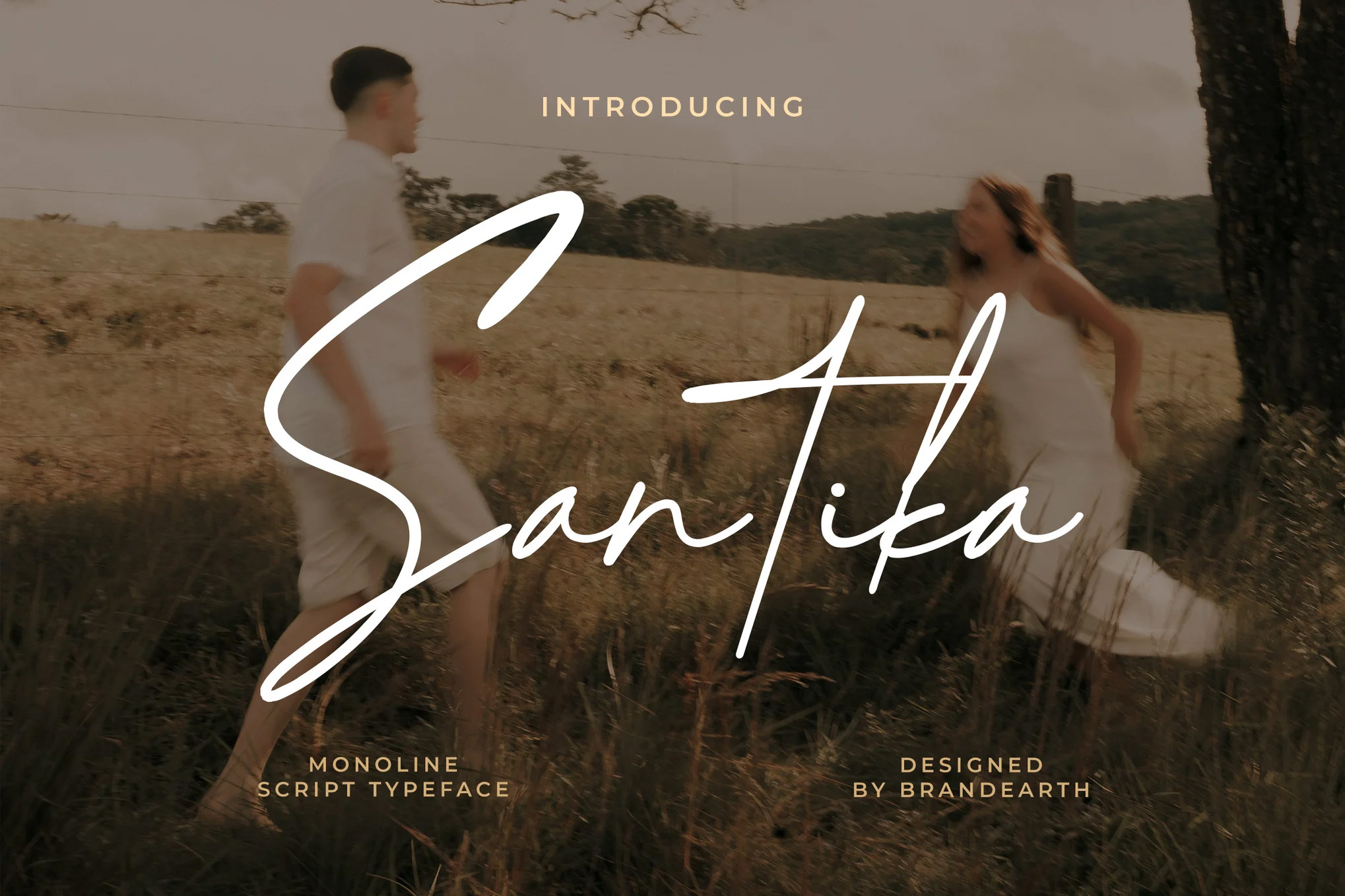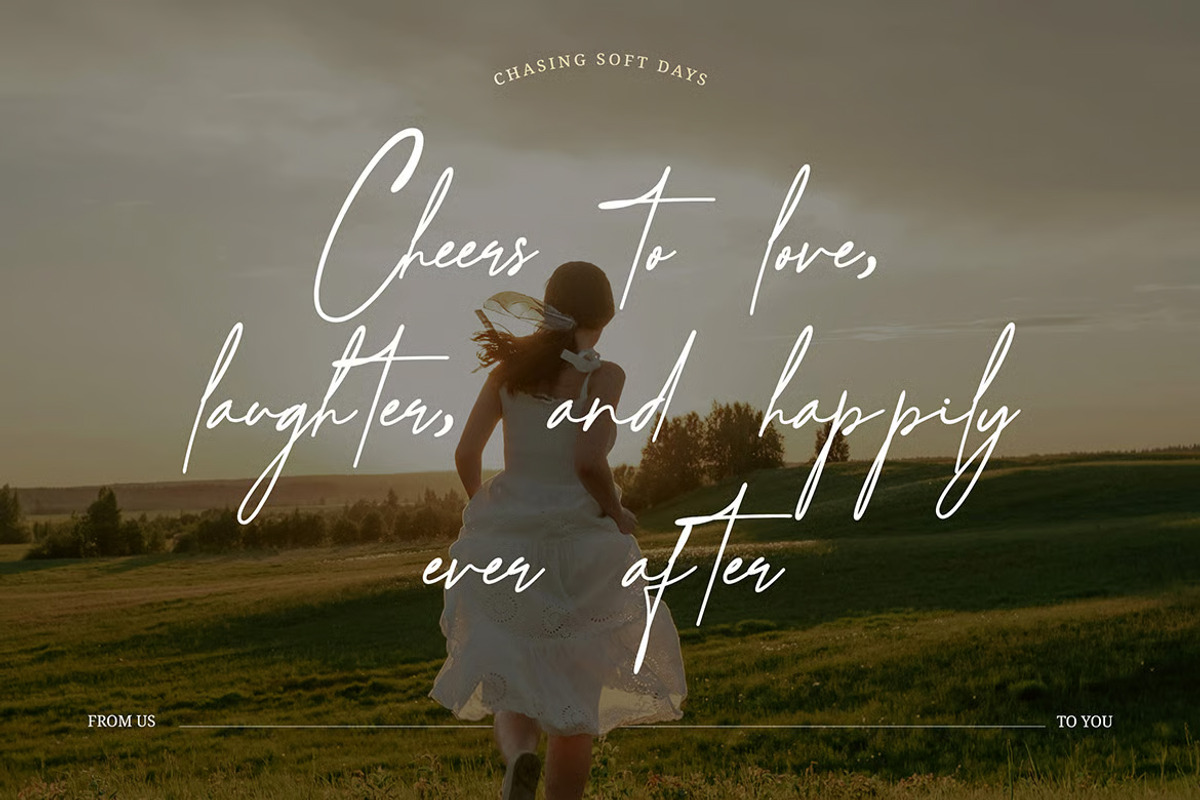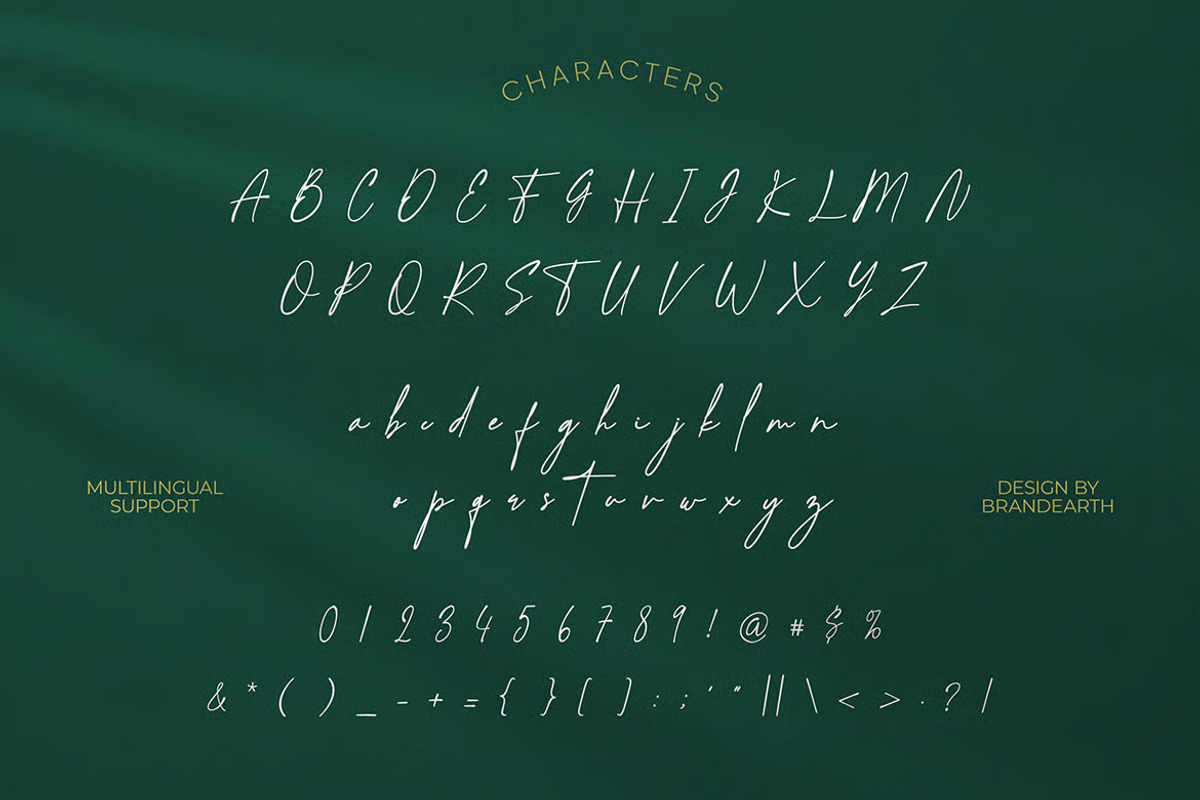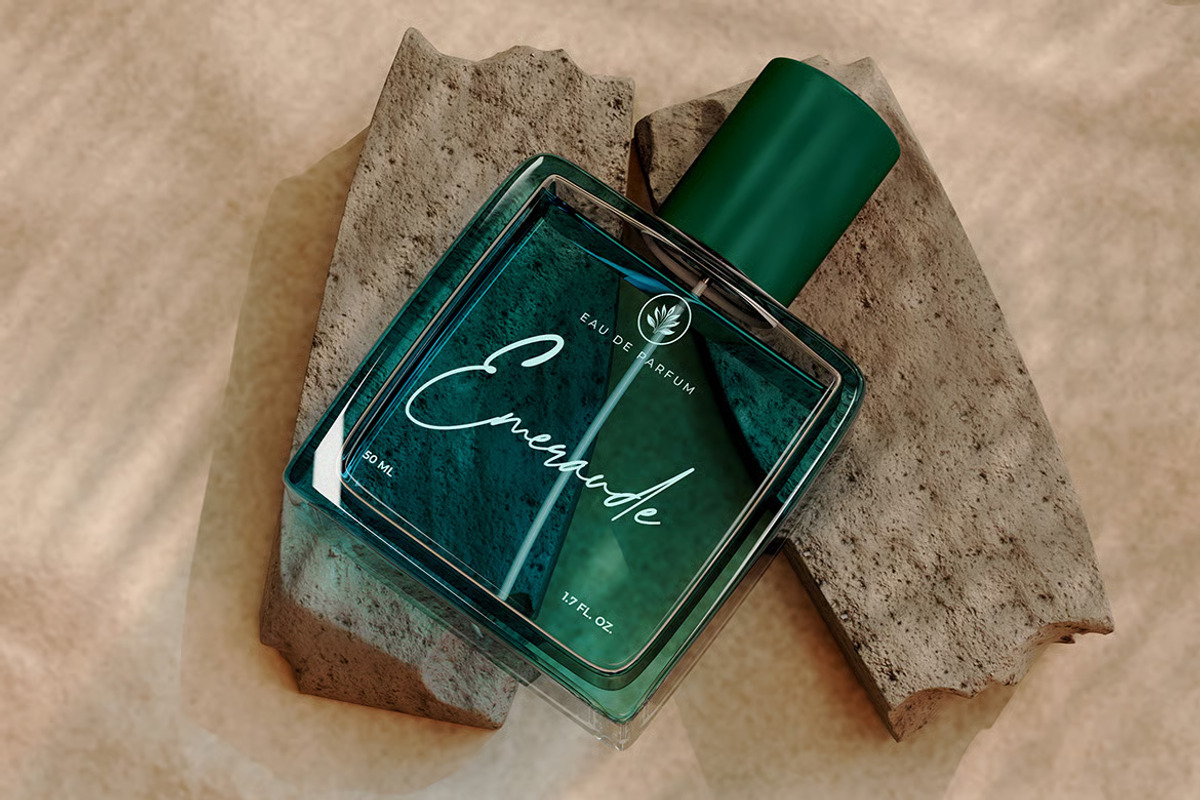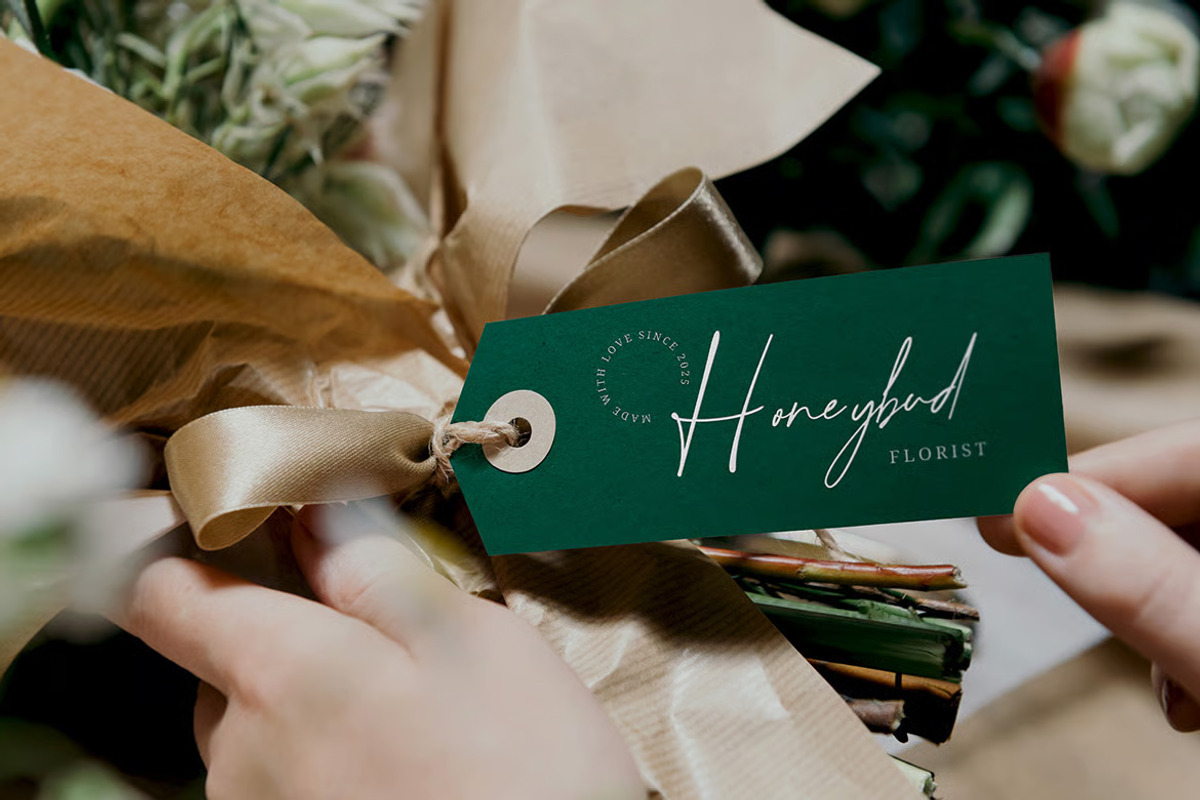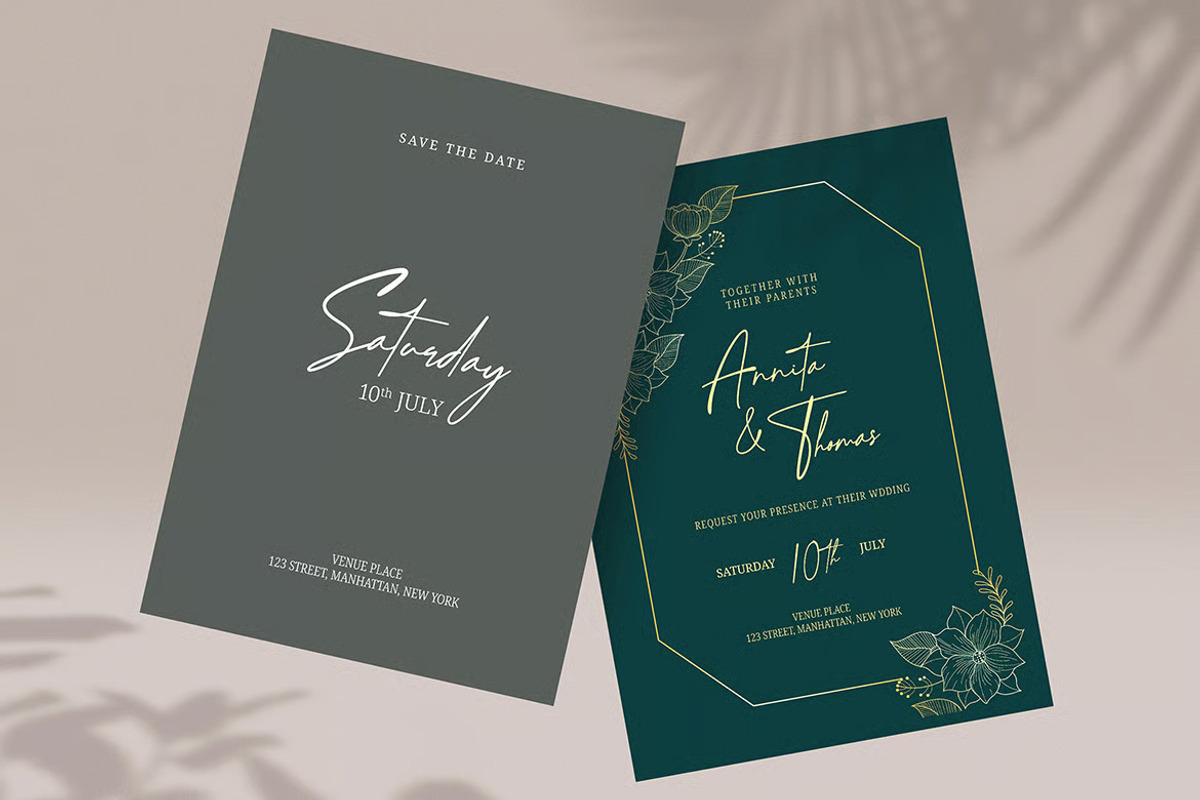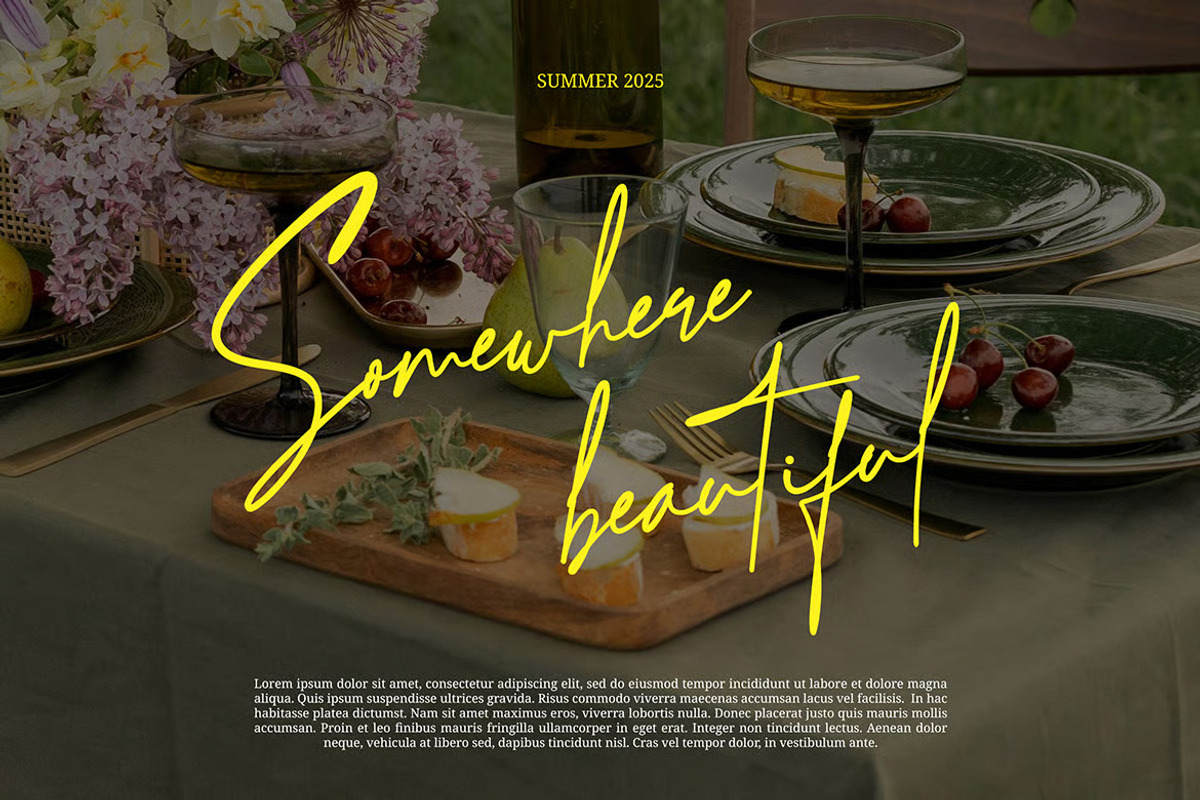
Santika – Sleek Monoline Script Font
Santika is a sleek, handwritten script font that exudes emotional elegance and youthful charm. With a slightly wild yet refined stroke, it balances between casual freedom and editorial polish. Santika is infused with movement and soul, making it feel alive and expressive—ideal for storytelling with emotional impact.
Its letterforms are naturally flowing with slight texture, giving it a handwritten authenticity while maintaining stylish consistency. The strokes are lean and elongated, capturing a cinematic quality that speaks to modern romance and poetic narrative.
Santika shines in wedding visuals, social media storytelling, personal branding, lifestyle content, and modern stationery. The design speaks to a generation drawn to clean minimalism with personality—perfect for photographers, content creators, event stylists, and fashion-forward entrepreneurs who want their message to feel intimately handwritten and emotionally rich.
Main Features
Ligatures & Alternate
Numeral & Punctuations
Suitable For: wedding branding, fashion blogs, event stationery, YouTube thumbnails, photography watermarks, social media posts, product packaging, romantic quotes, modern invitations, lifestyle content, personal branding, handwritten logos, digital journals, cinematic captions, and elegant web headers.